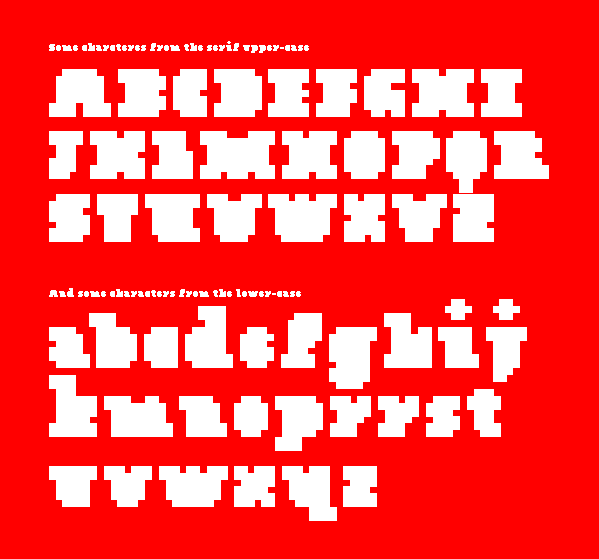
Font name: | Chemo Serif Screen |
Author: | Fabio Lima |
Note by Fabio Lima | |
Chemo Screen Serif is simple minimal block pixel type designed specifically for screen usage! A design to explore the limits of legibility. |